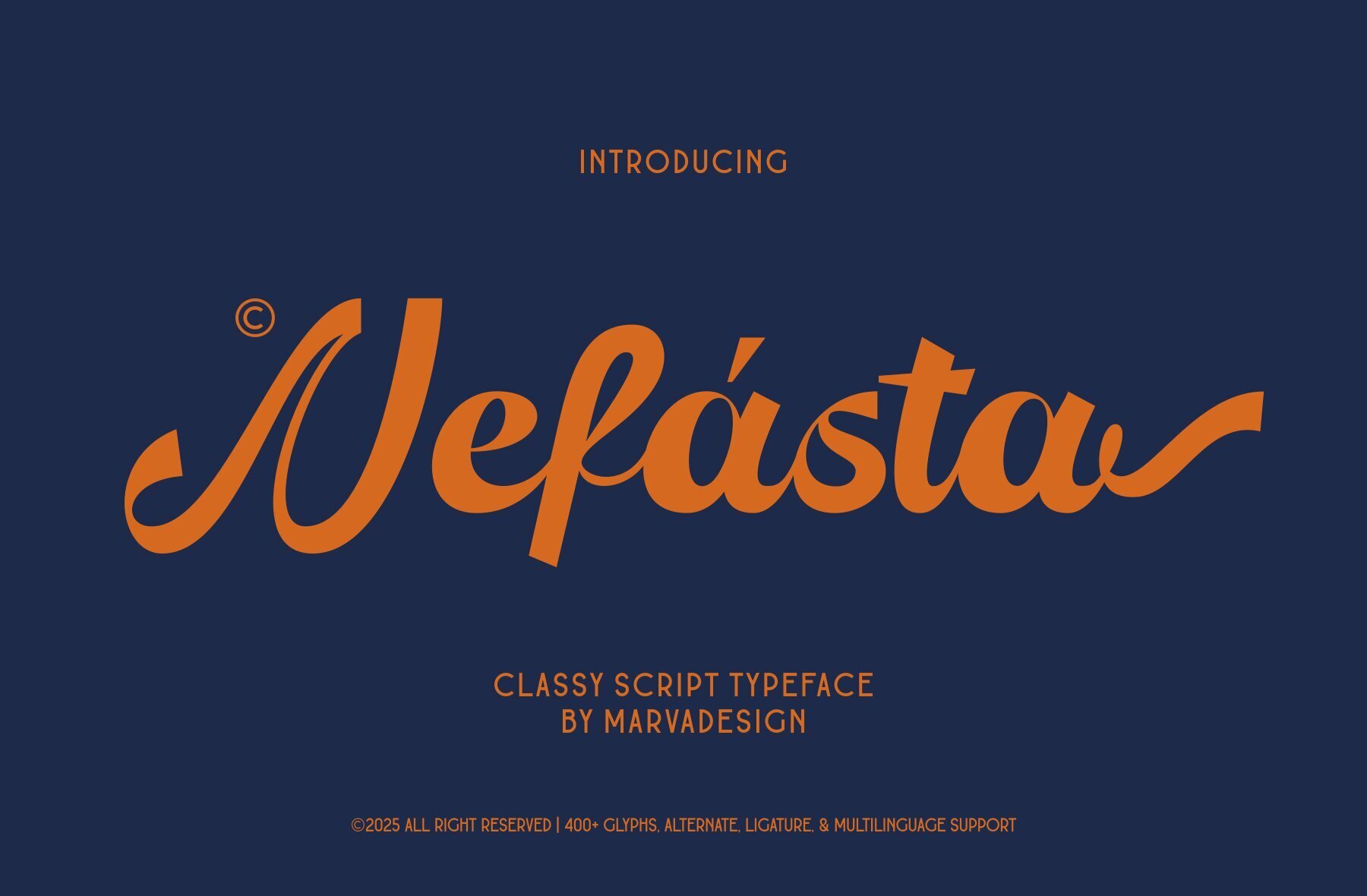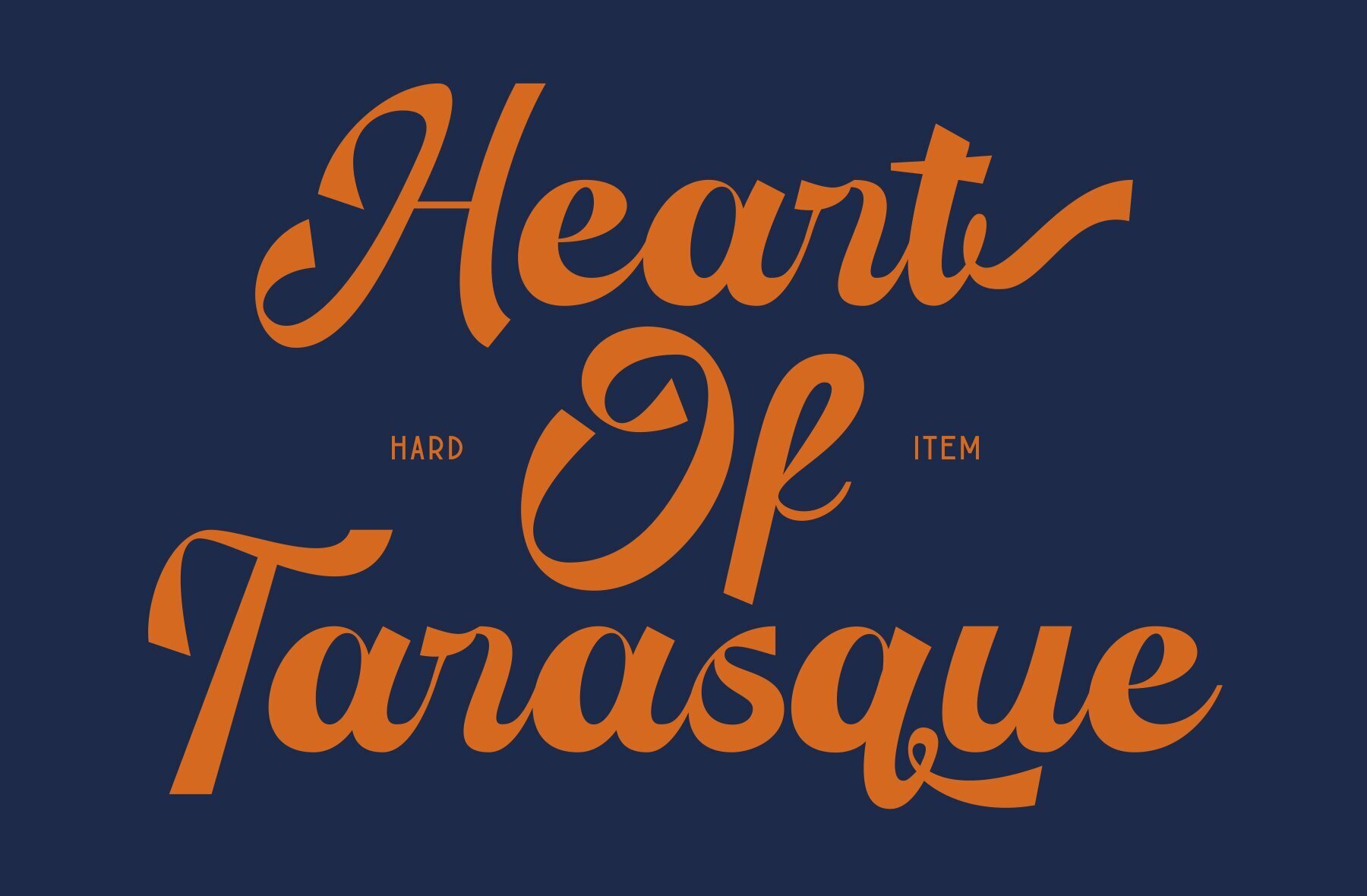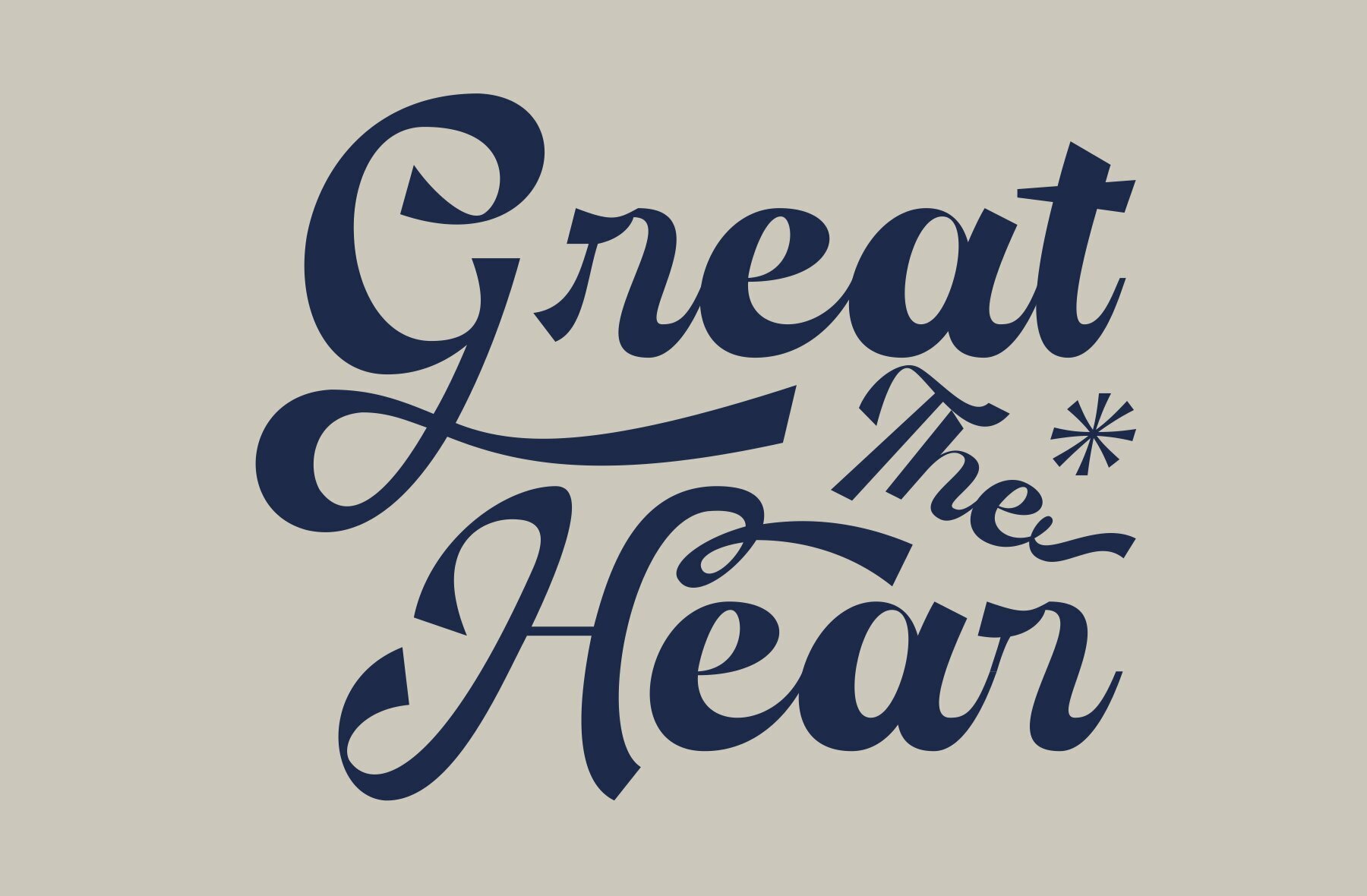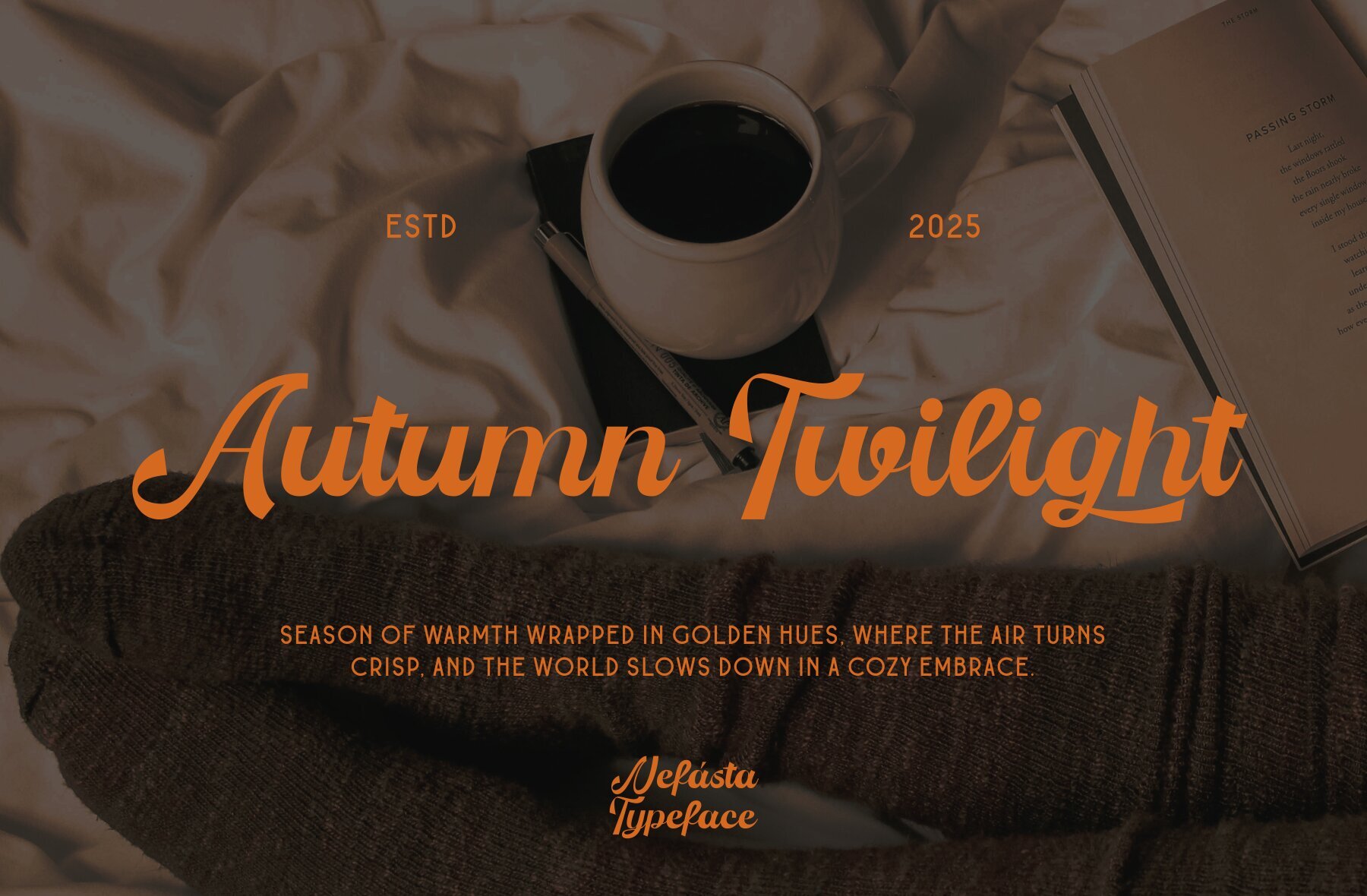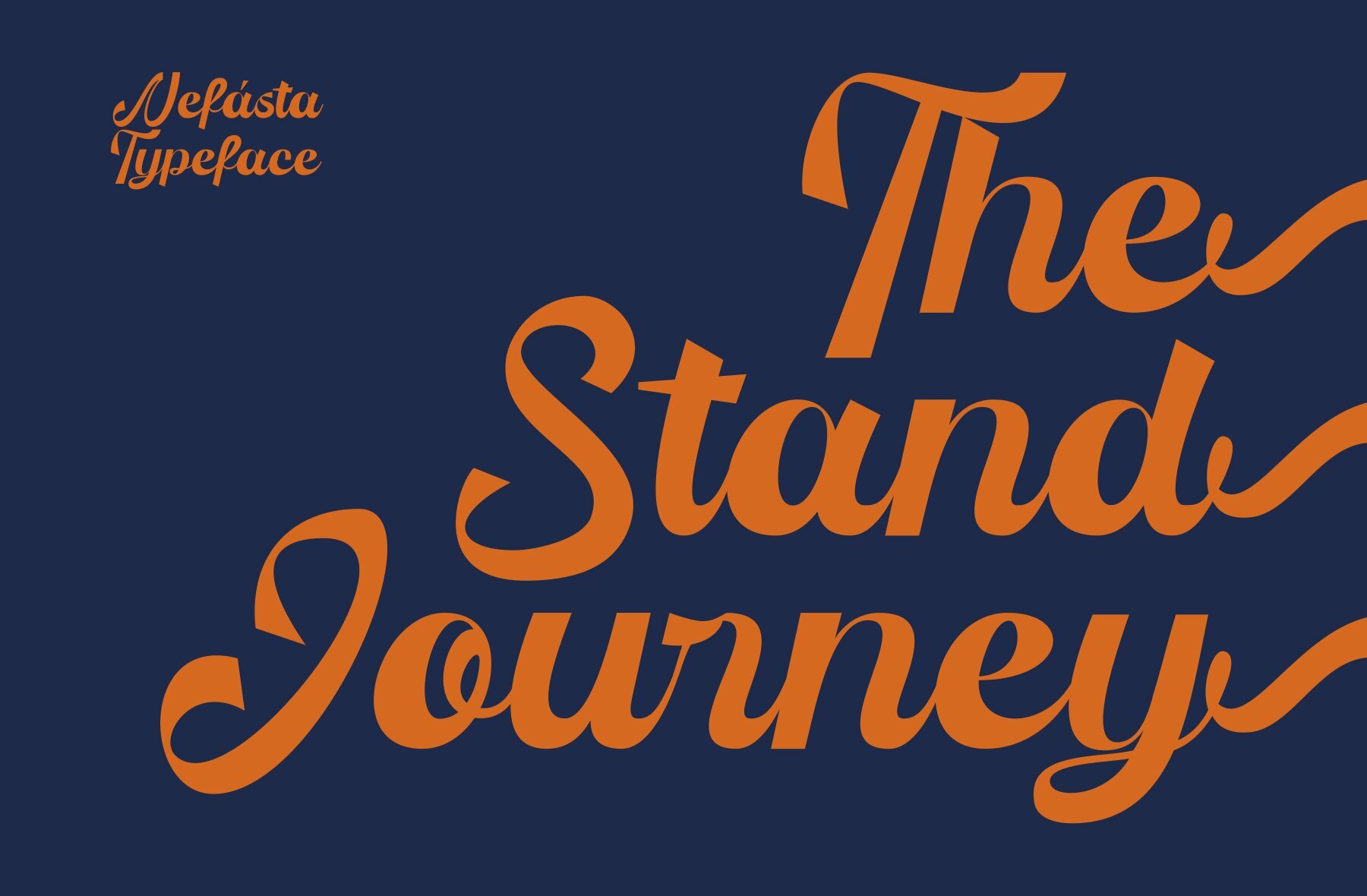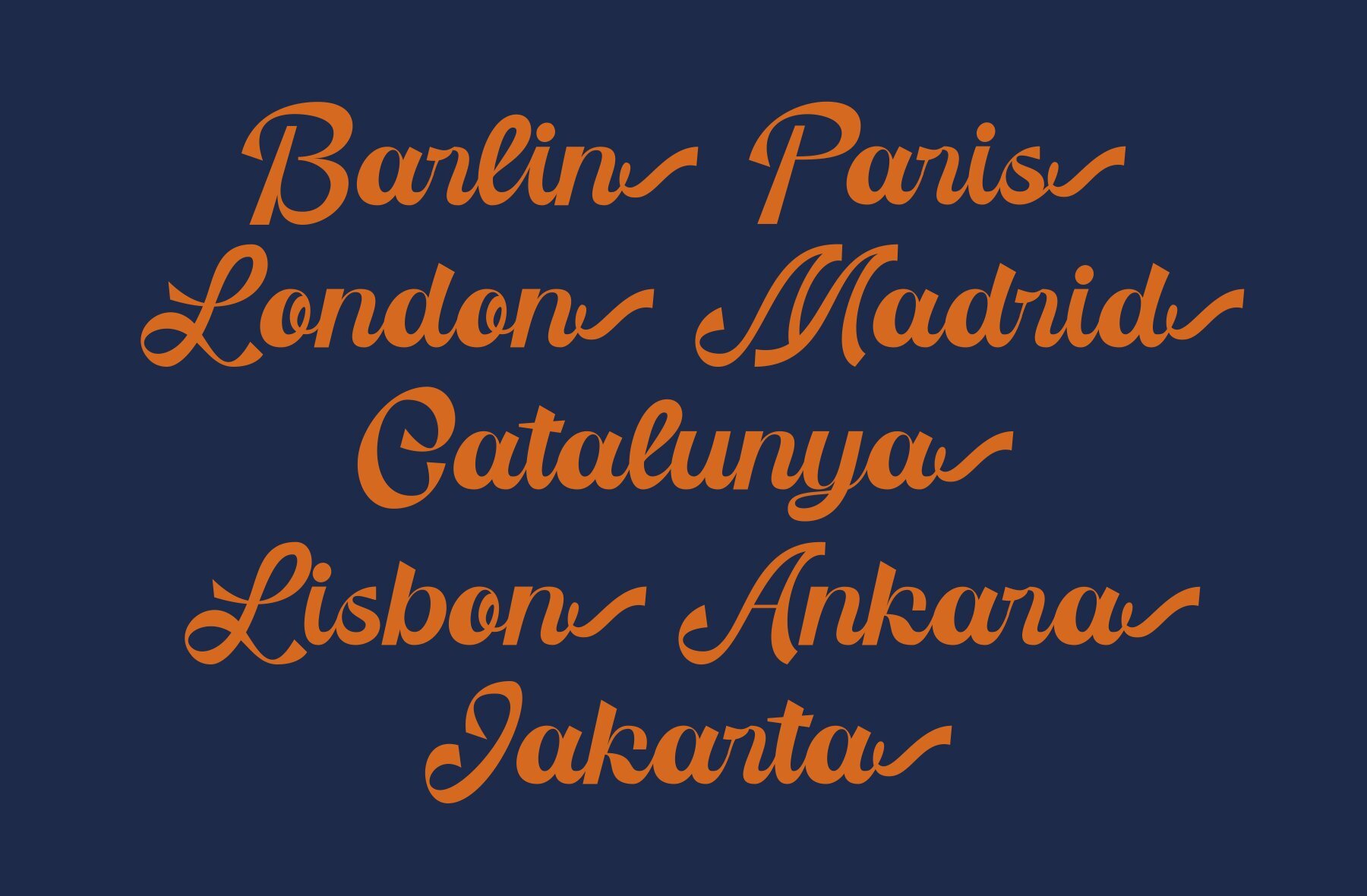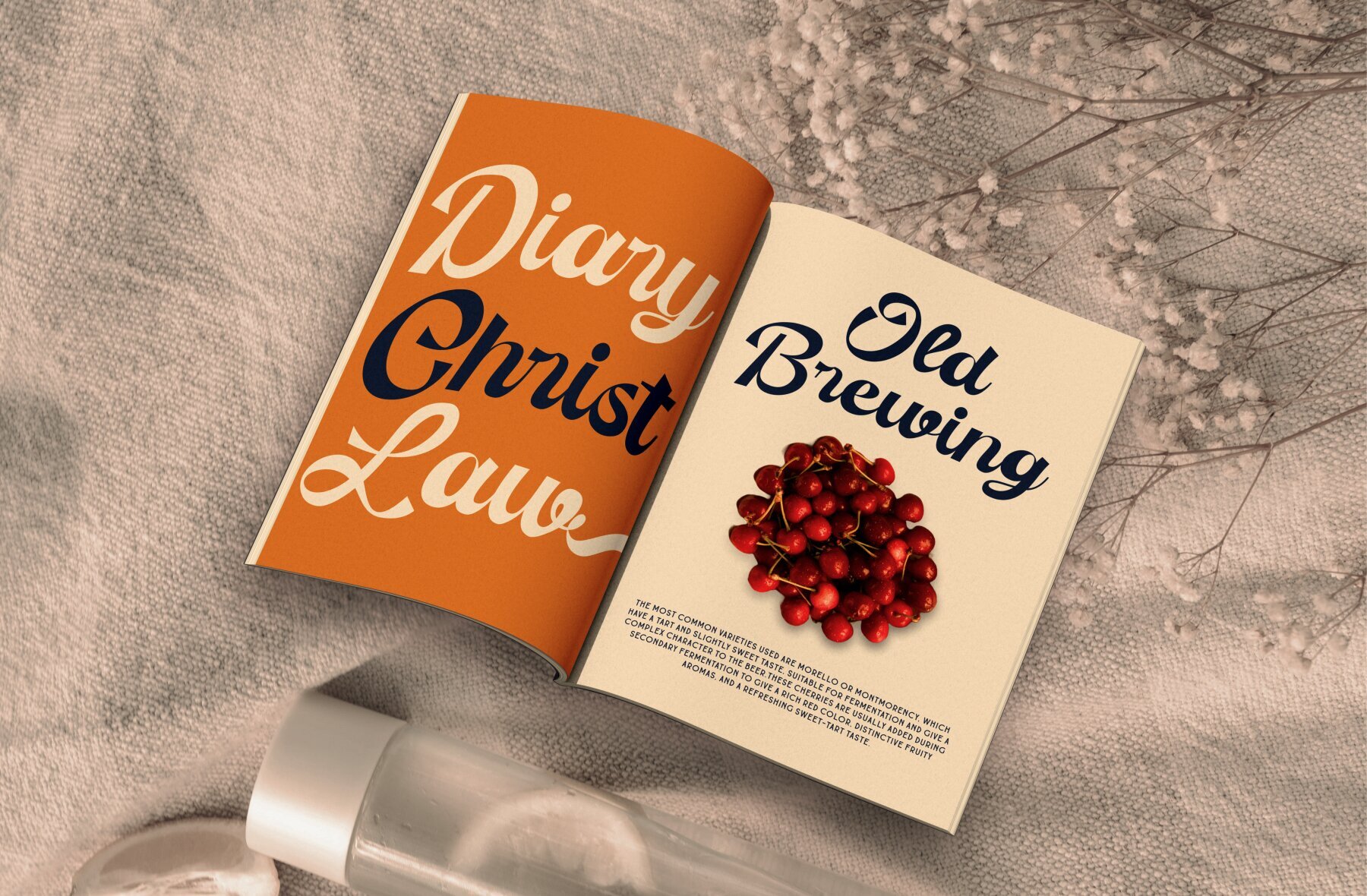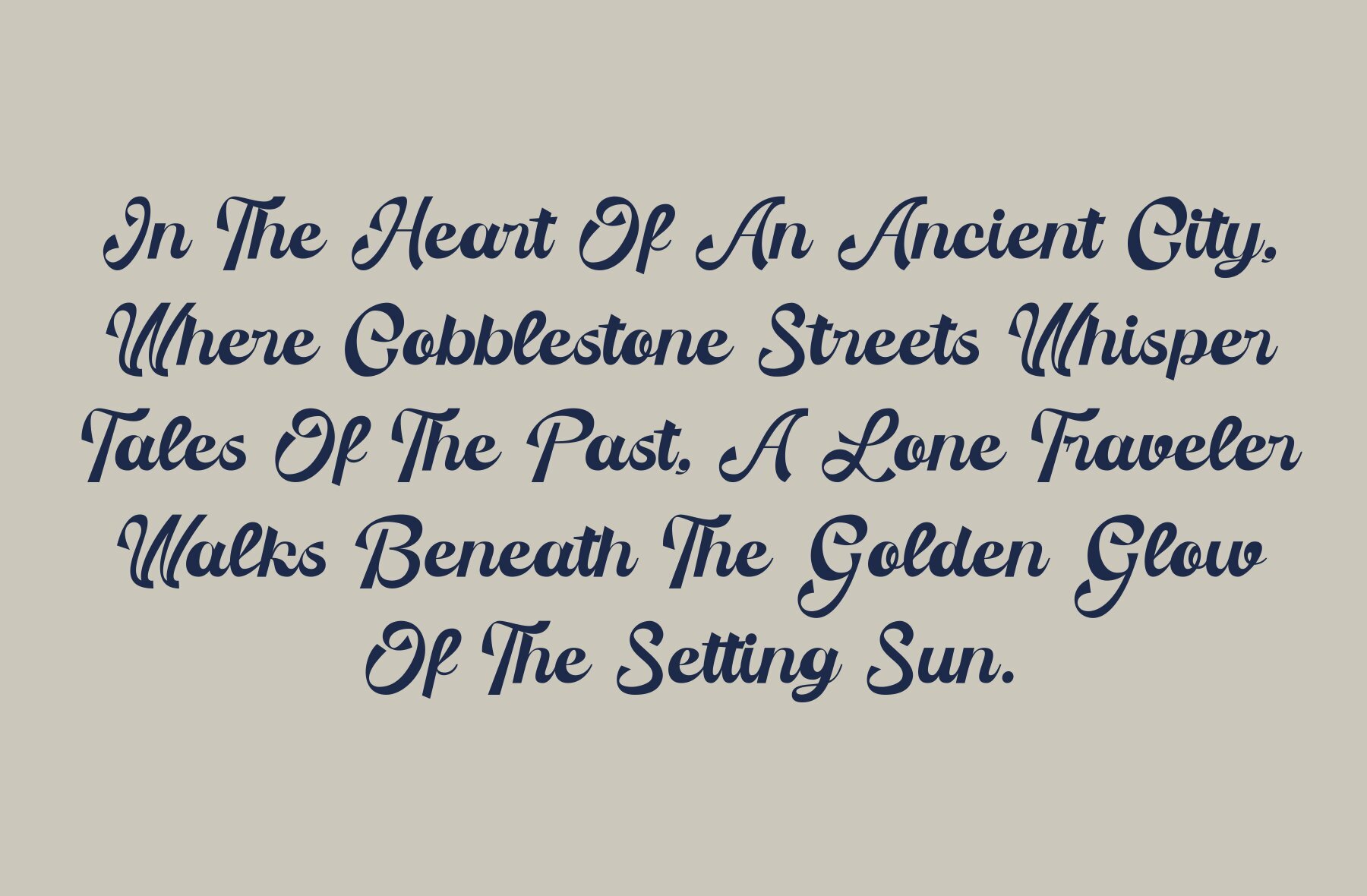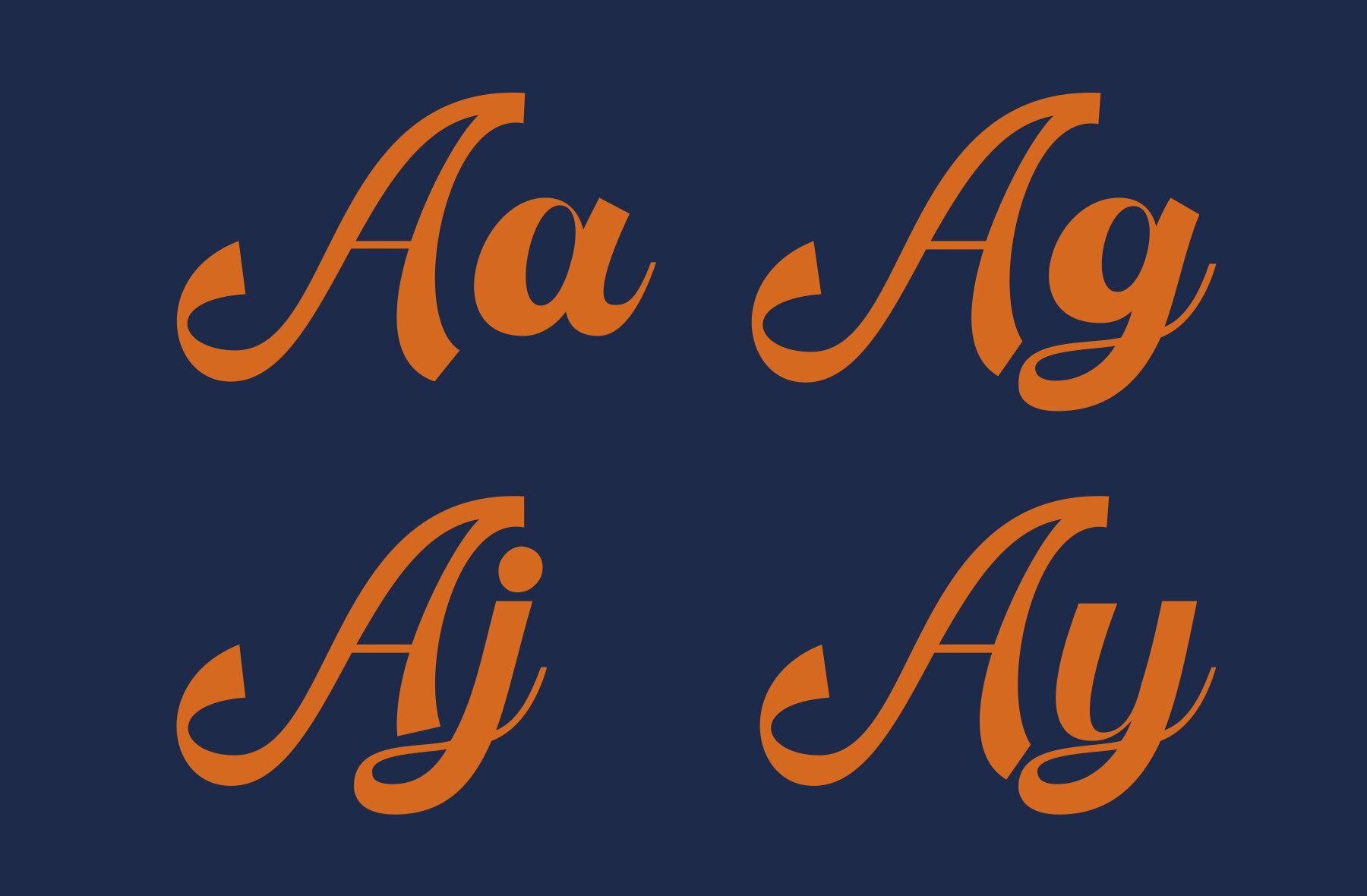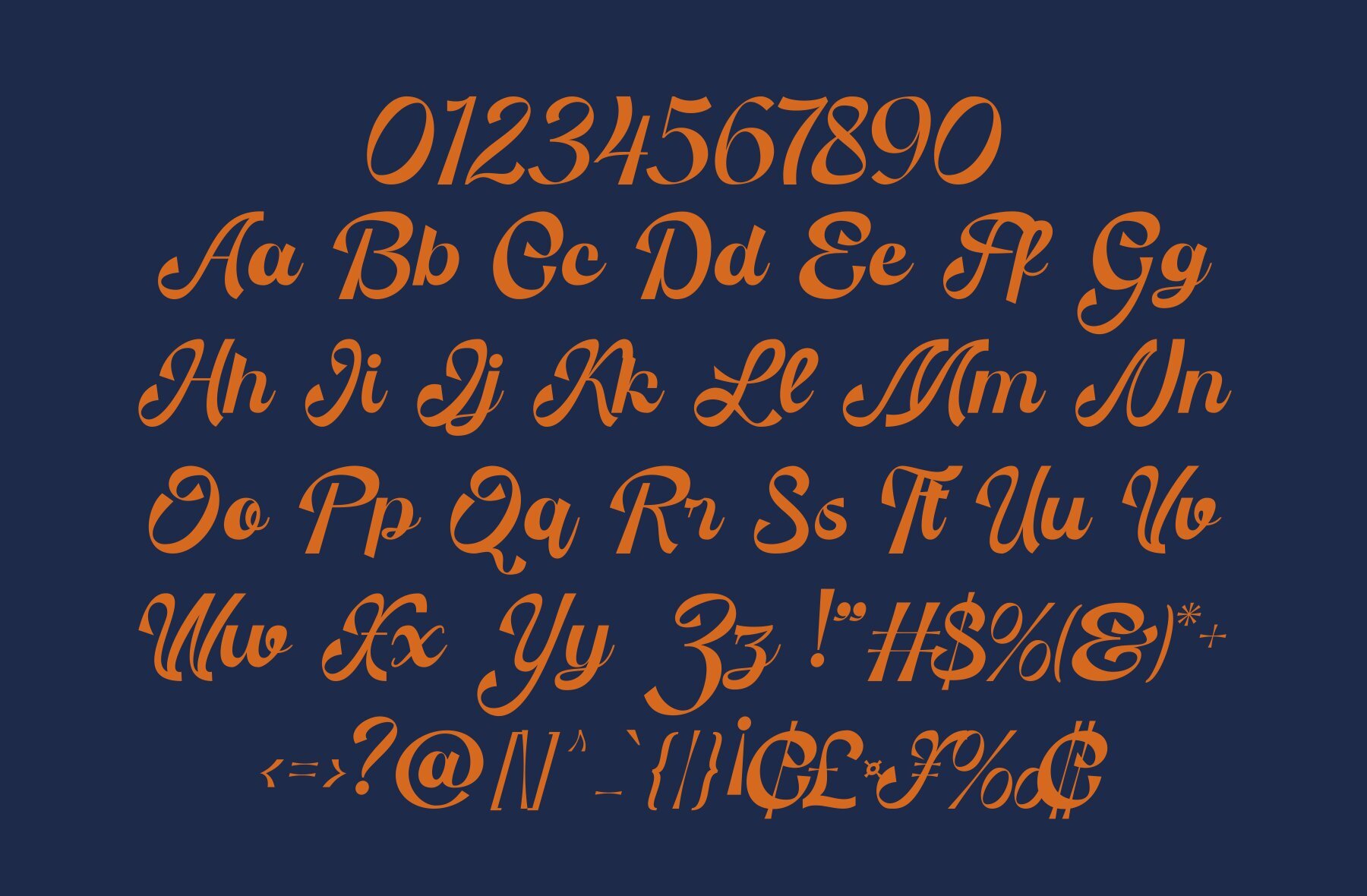
Nefasta Font
Nefasta
Discover the elegance and sophistication of Nefasta, a script typeface that marries classic charm with modern grace. Its flowing cursive strokes and well-balanced letterforms create a high-contrast design ideal for branding, editorial design, or luxury-themed projects. With its smooth curves and meticulously crafted ligatures, Nefasta adds a dynamic flair to every composition. The typeface's allure lies in its harmonious balance between thick and thin strokes, ensuring both readability and artistic elegance. Featuring alternate glyphs that imbue each word with a sense of movement, Nefasta stands out in any setting. Thanks to extensive multilingual support and over 400 glyphs, it meets diverse design needs effortlessly. Nefasta is perfect for logos, invitations, product packaging, and refined typographic creations. With its blend of traditional calligraphy and contemporary style, it serves as a versatile and premium choice for all your design endeavors.Nefasta Script Typeface